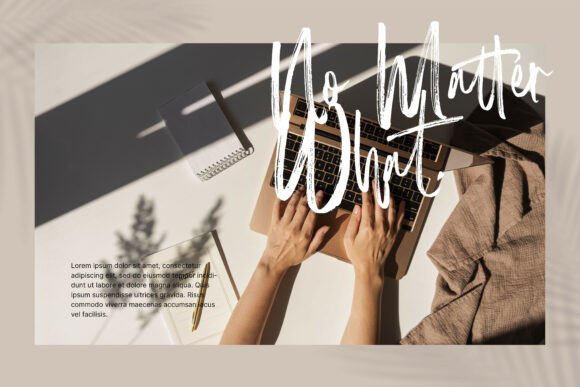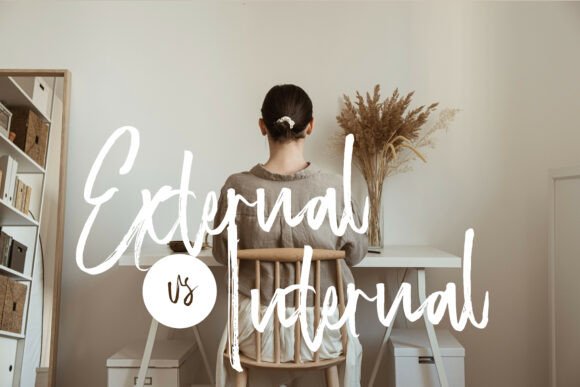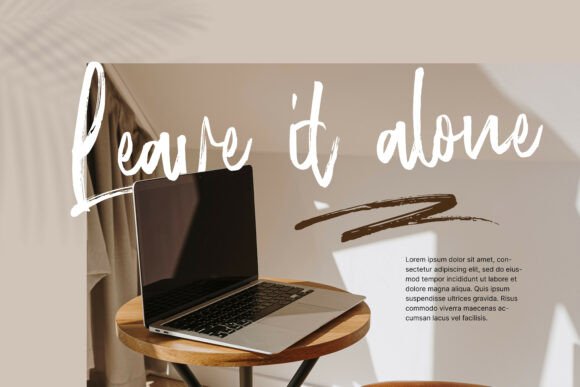
Introduction to Respiration Font
Imagine you’re brainstorming ideas for a new creative project, and you need the perfect font to make it stand out. You’ve searched high and low, but nothing seems to capture the essence of your vision. That’s when you stumble upon the Respiration Font – a game-changing design resource that’s sure to elevate your project to the next level.
With its unique, handmade style and transparent background, the Respiration Font is a high-quality addition to any designer’s toolkit. Whether you’re working on a branding project, creating wedding invitations, or designing a magazine, this font is sure to bring a touch of sophistication and creativity to your work. And the best part? It’s available for free download, making it an invaluable resource for designers of all levels.
As a designer, you understand the importance of having the right tools at your disposal. The Respiration Font is a valuable asset that can help you create truly memorable designs that leave a lasting impression on your audience.
Key Features of Respiration Font
- High-quality design with a unique, modern aesthetic
- Perfect for use in logos, typography, and other design elements
Honest Review: Respiration Font
I recently stumbled upon the Respiration Font, and I’m excited to share my honest thoughts on this design resource. As a designer, I’m always on the lookout for high-quality fonts that can elevate my creative projects. The Respiration Font definitely delivers.
- High-quality design: The Respiration Font features a sleek and modern design that’s perfect for a variety of creative projects.
- Transparent background: This makes it easy to use the font on any background, ensuring a seamless design experience.
- Limited font styles: While the Respiration Font is well-designed, it’s limited to a few font styles, which may not be sufficient for more complex projects.
- Not suitable for formal documents: Due to its modern and playful design, the Respiration Font may not be the best choice for formal documents or traditional publishing projects.
Overall, I’m impressed with the Respiration Font. Its high-quality design, transparent background, and free download make it a valuable resource for designers. While it may not be suitable for all projects, it’s a great addition to any design toolbox.
Tips for Getting the Most Out of Respiration Font
To get the most out of the Respiration Font, use it in combination with other design elements, such as graphics and images. You can also experiment with different font sizes and colors to create a unique look.
Common Use Cases for Respiration Font
The Respiration Font is ideal for use in creative projects, such as branding, logos, and advertisements. It’s also great for use in presentations, reports, and other documents where a high-quality font is needed.